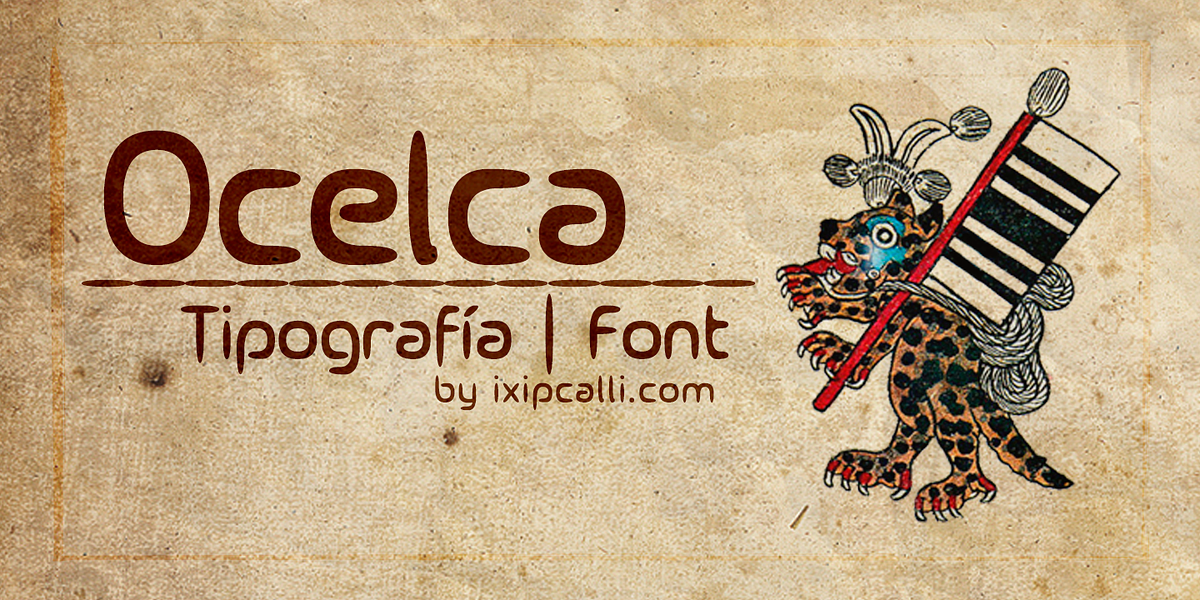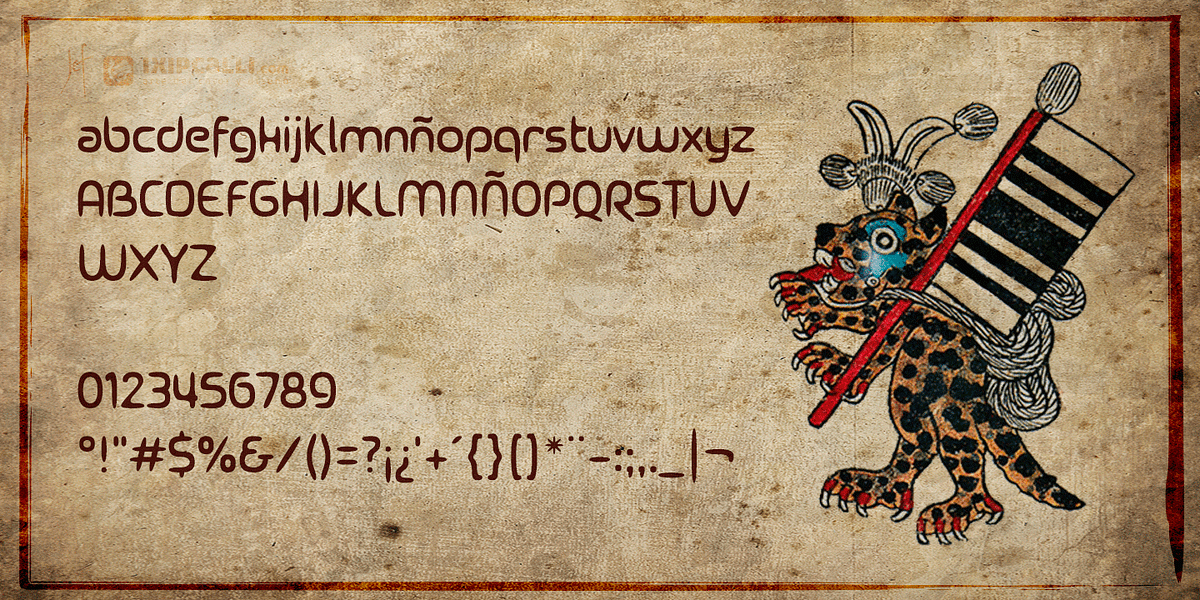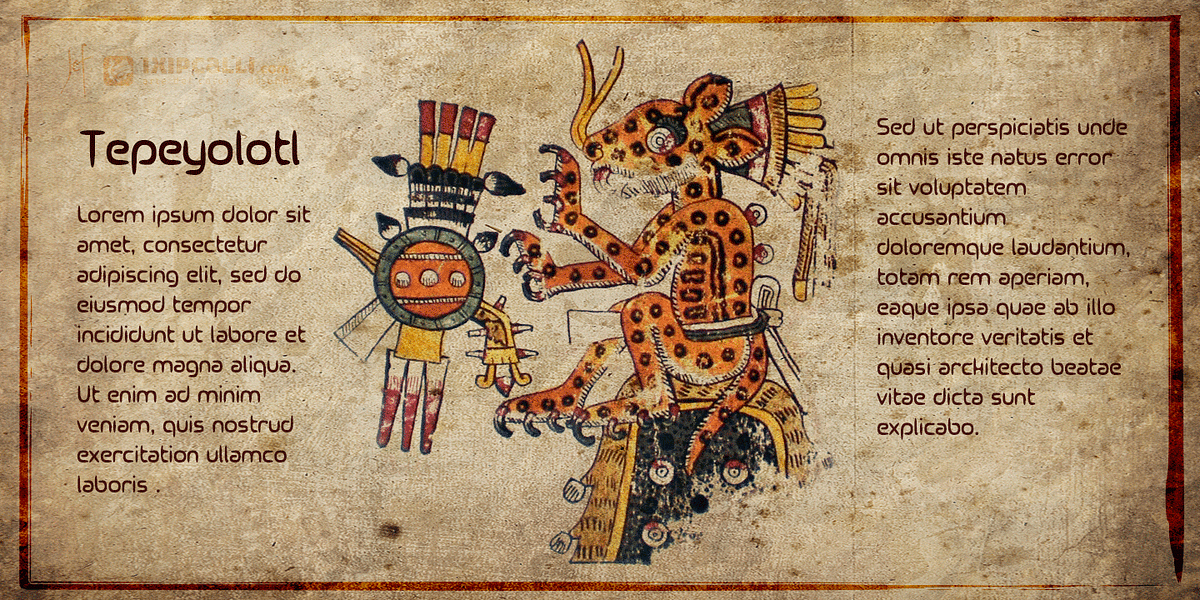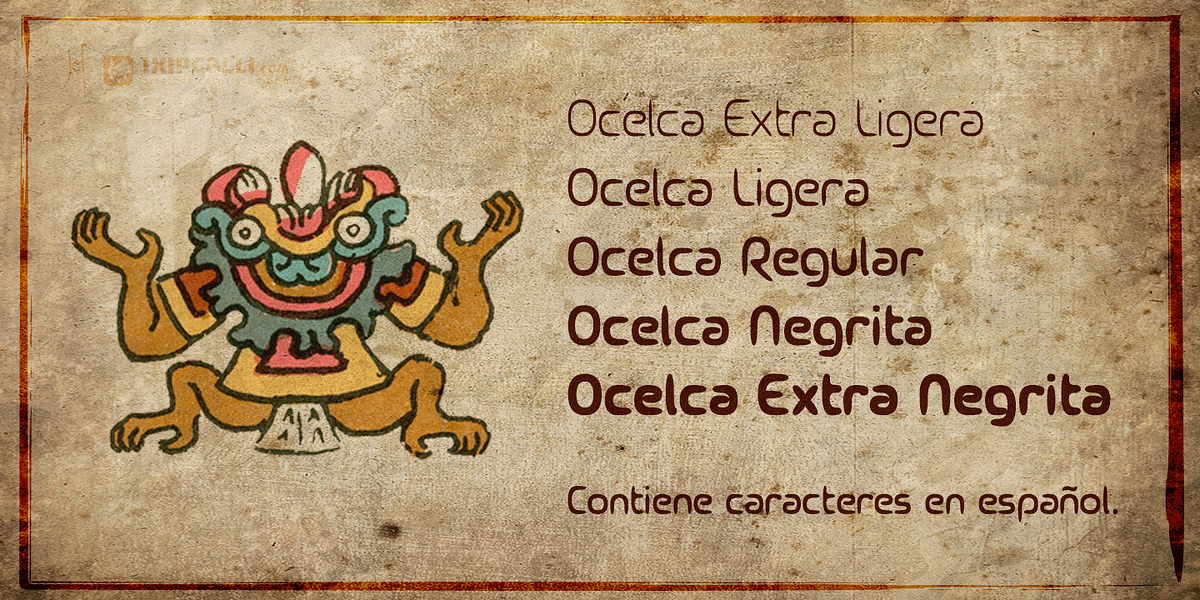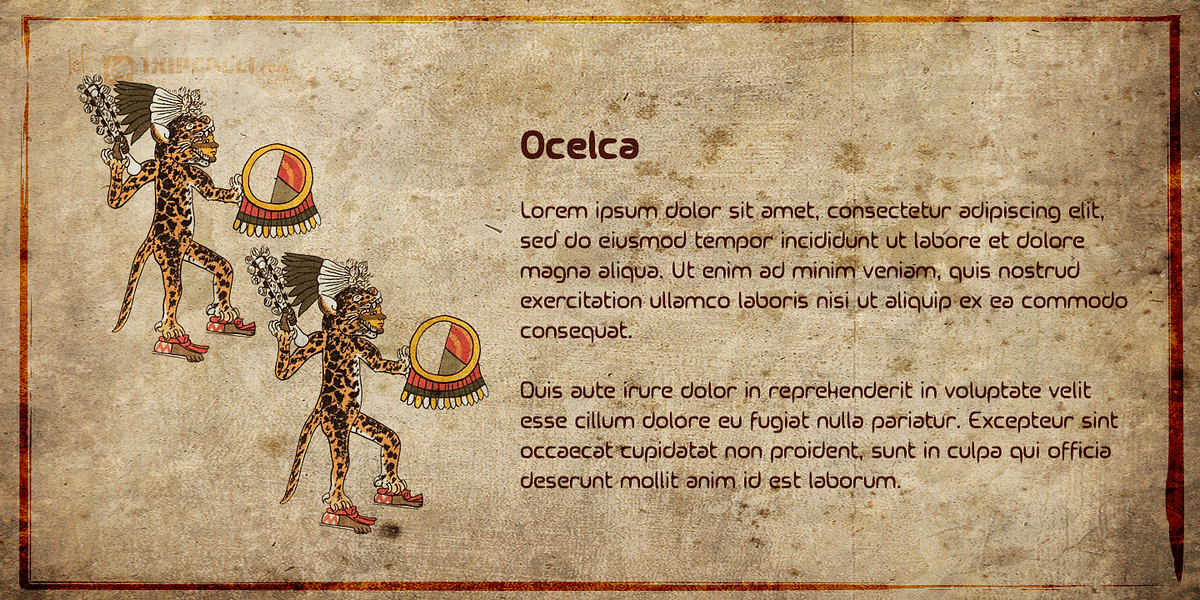
Ocelca
Ocelca is a hybrid, natural, abstract, and simple typeface with an informal style that is easy to read. This typeface is well suited for titles and logos. Although it is not recommended for long texts, it can work well in short texts, as it is very eye-catching. It has five weights without italic forms.